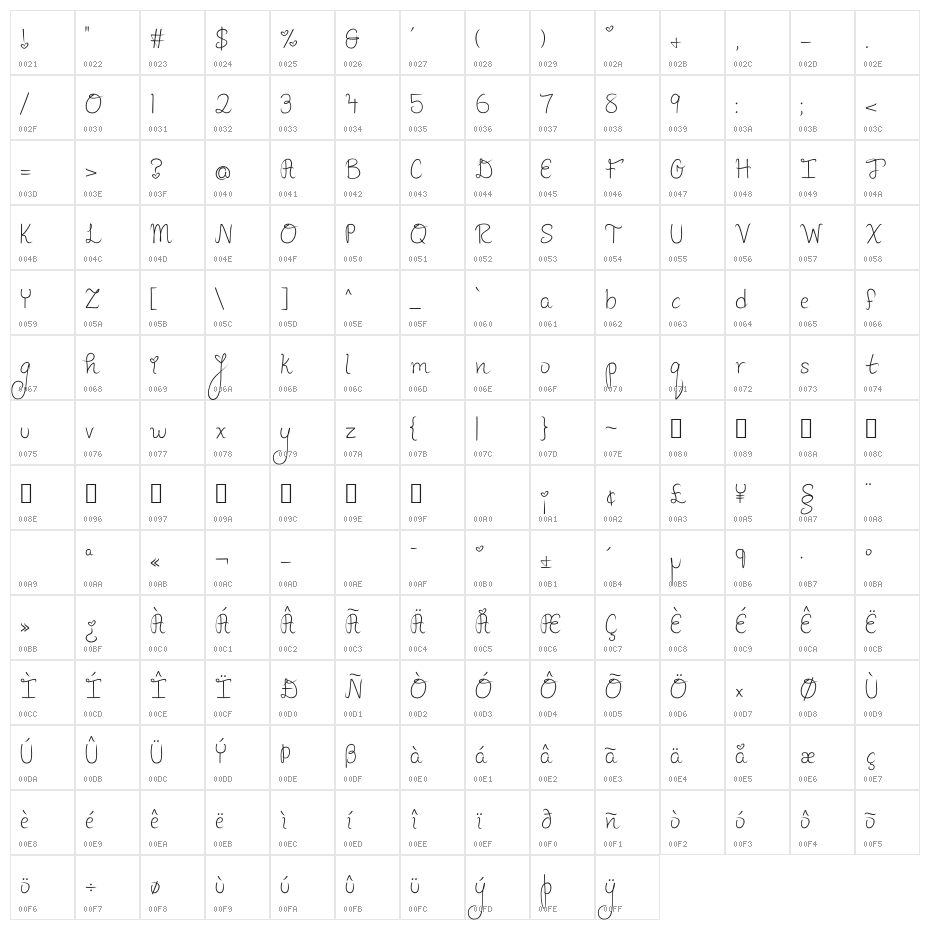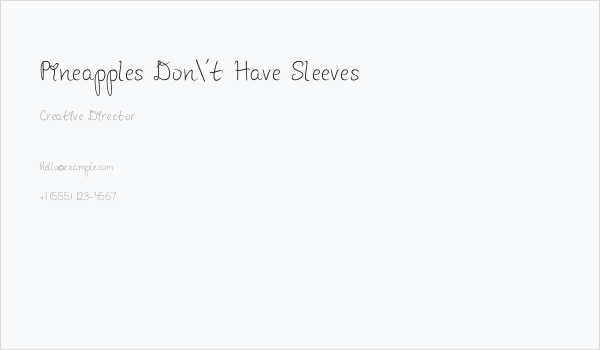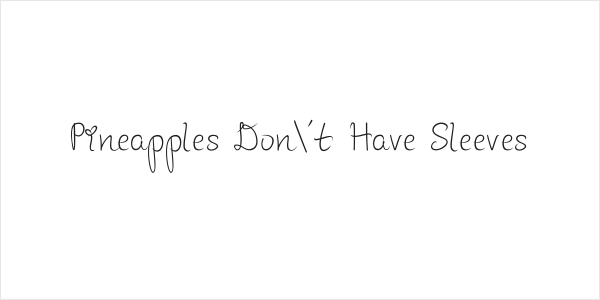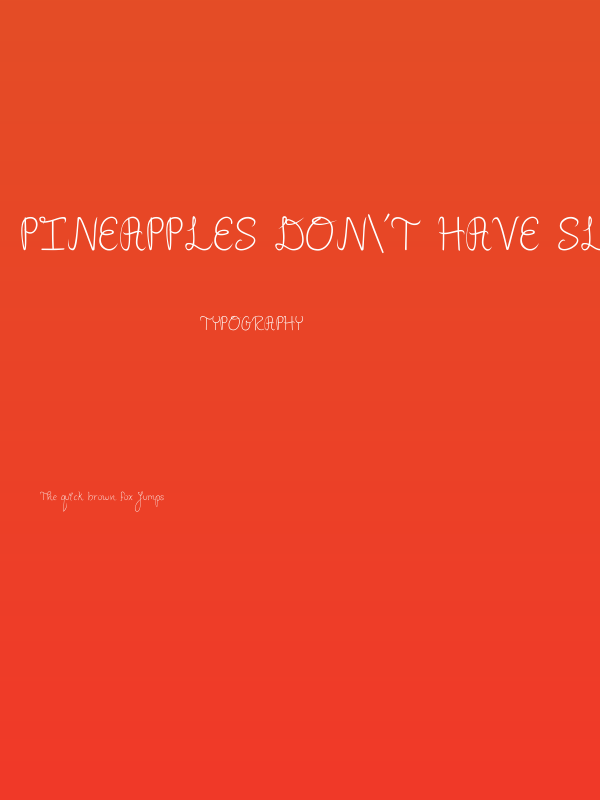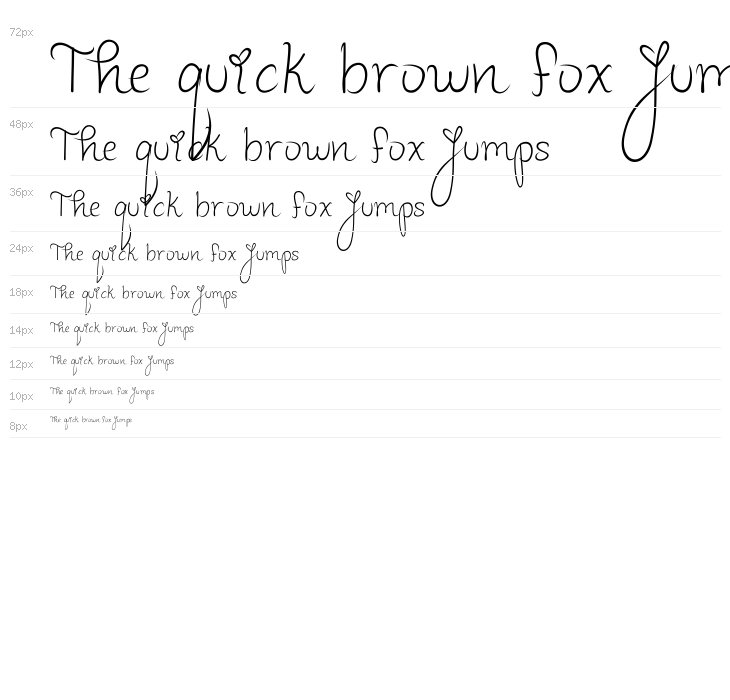
Pineapples Don't Have Sleeves Font
Pineapples Don't Have Sleeves Description
This font features a whimsical and playful handwritten style, characterized by its flowing, cursive-like letters. The uppercase letters are tall and elegant, with unique loops and swirls that add a touch of creativity. The lowercase letters maintain a consistent style, with some letters featuring charming heart-shaped embellishments. Numbers and special characters are designed to match the overall playful aesthetic, making them suitable for creative and informal projects. The font's thin strokes and delicate curves give it a light and airy feel, perfect for adding a personal touch to any design.
| Proposed Projects | Ideal for greeting cards, invitations, children's books, and playful branding. |